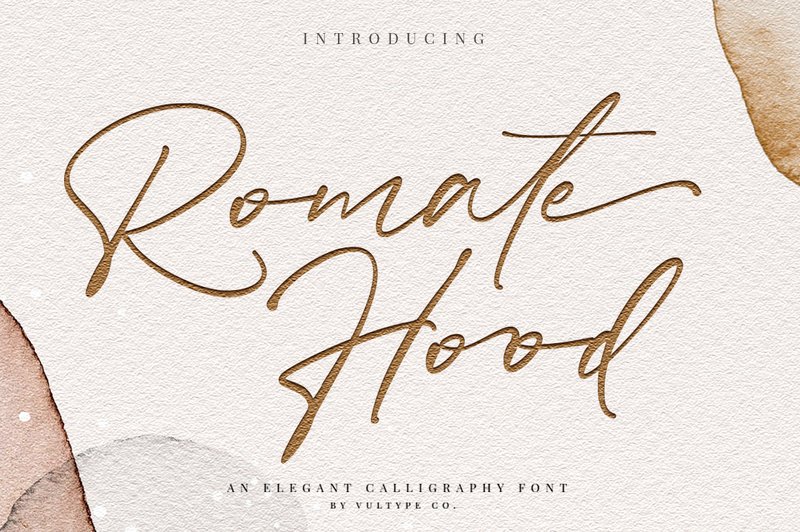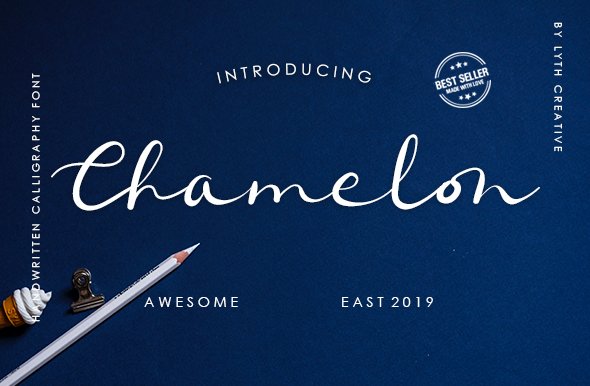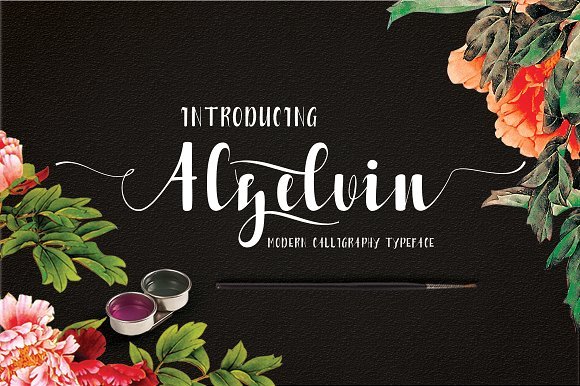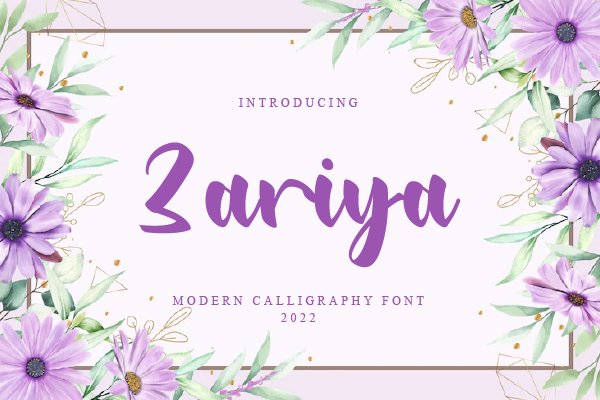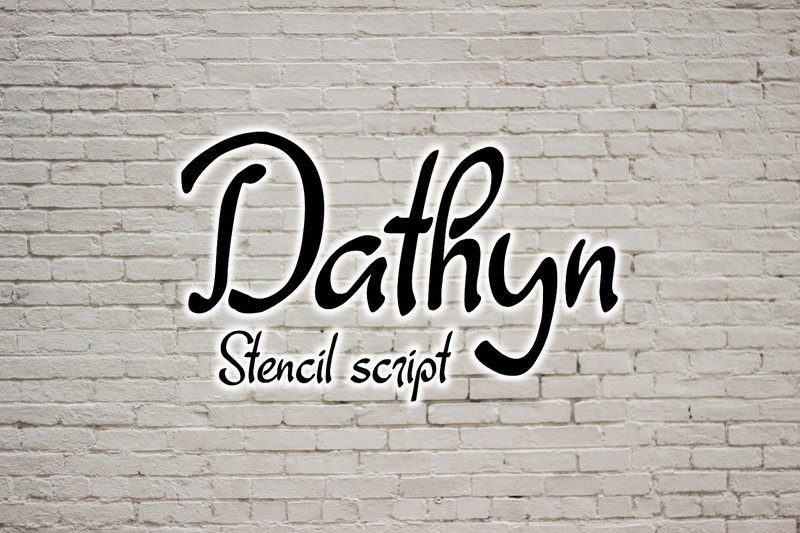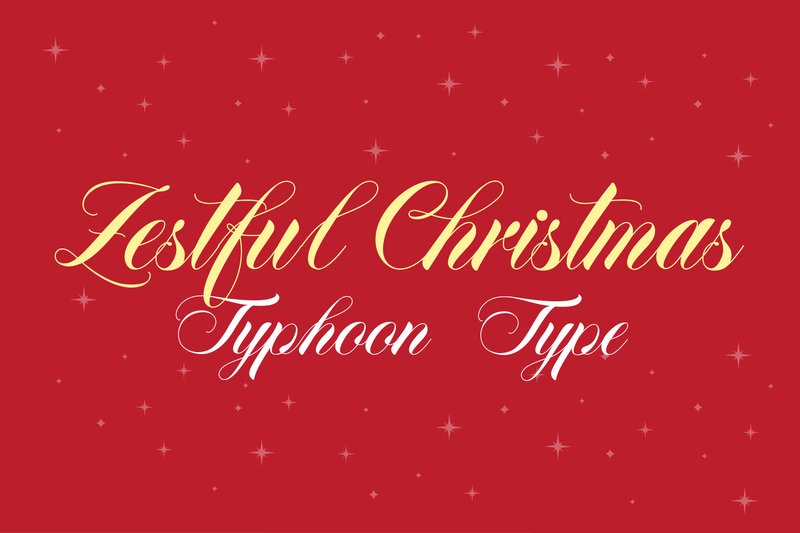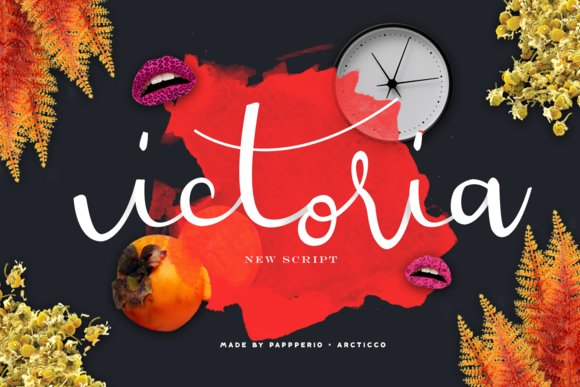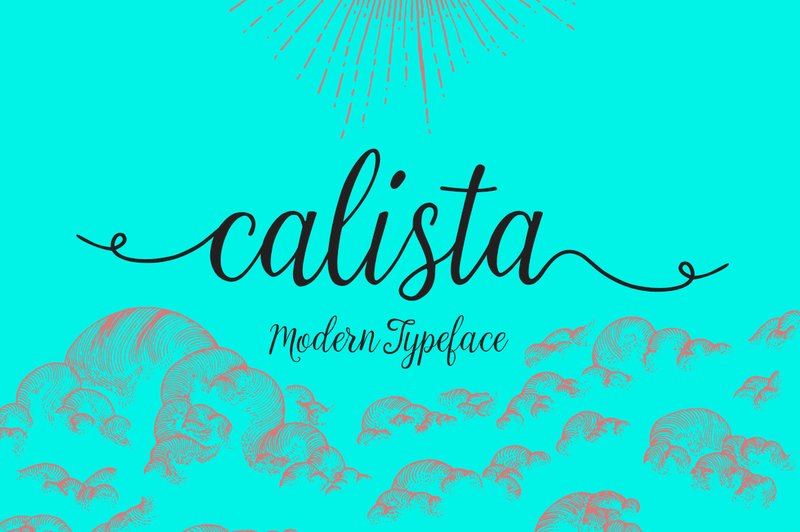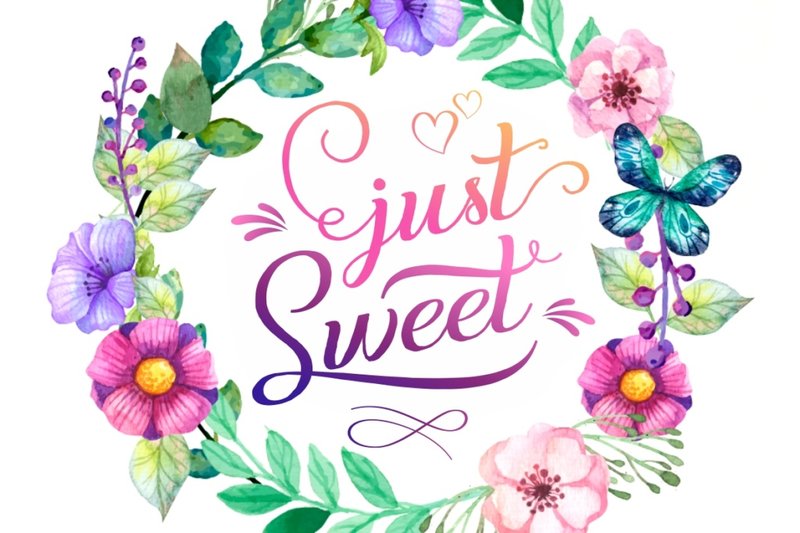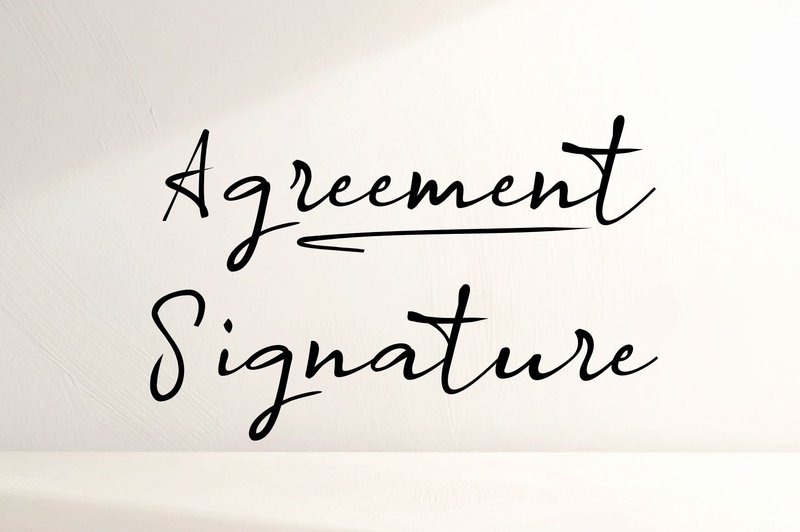
In a digital world saturated with clean, minimalist typography, the demand for authenticity and a human touch is stronger than ever. That’s where handwritten calligraphy fonts shine, and in 2026, they are an essential tool for designers and DIY crafters. These fonts bring elegance, personality, and an organic feel to everything from wedding invitations and branding to social media graphics and product packaging. This curated collection features 35 of the most popular and breathtaking handwritten calligraphy fonts available right now, each hand-picked to help you create stunning, heartfelt projects that truly connect with your audience.
1. Romate Hood (by vultype)
Romate Hood (by vultype) With its fluid, high-contrast strokes that mimic the delicate pressure of a pointed pen, Romate Hood delivers a perfect blend of timeless charm and authentic calligraphic artistry. This font feels both personal and incredibly polished, making it a sophisticated choice for designs that require a touch of human elegance without sacrificing professional refinement. The graceful letterforms connect seamlessly, creating a natural flow that is both inviting and luxurious.
- Graceful, flowing letterforms with an authentic handwritten feel
- A beautiful balance of classic elegance and modern script styling
- High-contrast strokes that create a dynamic, sophisticated look
- Wedding invitations, save-the-dates, and event stationery
- Refined branding, signature logos, and watermarks
- Editorial headlines and sophisticated packaging design
2. Chamelon (by lyanatha)
Chamelon (by lyanatha) exudes an effortless charm, feeling like a beautifully penned note that’s both deeply personal and impeccably styled. It strikes a perfect balance, blending the graceful, flowing strokes of traditional calligraphy with a clean, contemporary sensibility. This font doesn’t just write words; it conveys warmth and refined taste, making any design feel instantly more intimate and upscale without ever seeming dated.
- Elegant, flowing letterforms with a natural handwritten feel
- A sophisticated blend of classic calligraphic flourishes and clean, modern lines
- Dynamic strokes that create an authentic, organic texture
- Boutique branding, logos, and high-end packaging
- Stunning wedding invitations, save-the-dates, and event signage
- Editorial headlines and social media graphics requiring a personal touch
- Apparel designs and merchandise with a handcrafted aesthetic
3. Alzelvin (by Danti)
Alzelvin (by Danti) moves beyond the realm of rigid, predictable scripts. This font breathes an organic, fluid energy into every character, mimicking the effortless grace of a hand-gliding pen on paper. Its delicate yet confident strokes create an atmosphere of intimate sophistication and timeless romance, making it an essential tool for designs that need to feel both personal and impeccably refined.
- Expansive stylistic alternates and sets to customize each word.
- Elegant swashes that add a dramatic and decorative flourish.
- A complete set of standard ligatures for a truly authentic, connected flow.
- PUA-encoded characters for easy access to all glyphs in any design software.
- Luxury branding, signature logos, and high-end product packaging.
- Romantic wedding invitations, stationery, and event signage.
- Impactful social media quote graphics and delicate watermarks.
- Editorial headlines that require a touch of human elegance.
4. Zariya (by Zero Type)
Zariya (by Zero Type) is an elegant and flowing script that brings a touch of modern sophistication to any project. Its graceful letterforms move with a natural, handwritten rhythm, creating an aesthetic that is both personal and polished. This font is perfect for designers looking to infuse their work with a chic, effortless vibe that feels both current and timeless.
- Modern calligraphy with a fluid, natural stroke
- A complete set of uppercase and lowercase letters
- Smooth, connecting letterforms for a seamless look
- Designed for a high-end, elegant feel
- Wedding invitations, save-the-dates, and event stationery
- Luxury branding, logos, and packaging
- Stylish quotes for social media and photo overlays
- Signature-style watermarks for photography
5. Dathyn (by Digital Typeface Studio)
Dathyn (by Digital Typeface Studio) is a striking stencil script that redefines handwritten elegance with its daring, open-loop design. By intentionally breaking the traditional forms of calligraphy, this font achieves a deconstructed yet graceful aesthetic that feels incredibly fresh and artistic. Each character flows with a casual confidence, creating a look that is both raw and refined, perfect for making a sophisticated statement in any modern design project.
- Unique stencil script construction for an edgy, artistic feel.
- Distinctive open-loop letterforms that create a light, airy aesthetic.
- Smooth, handwritten flow that maintains calligraphic elegance.
- High-fashion branding and avant-garde logo designs.